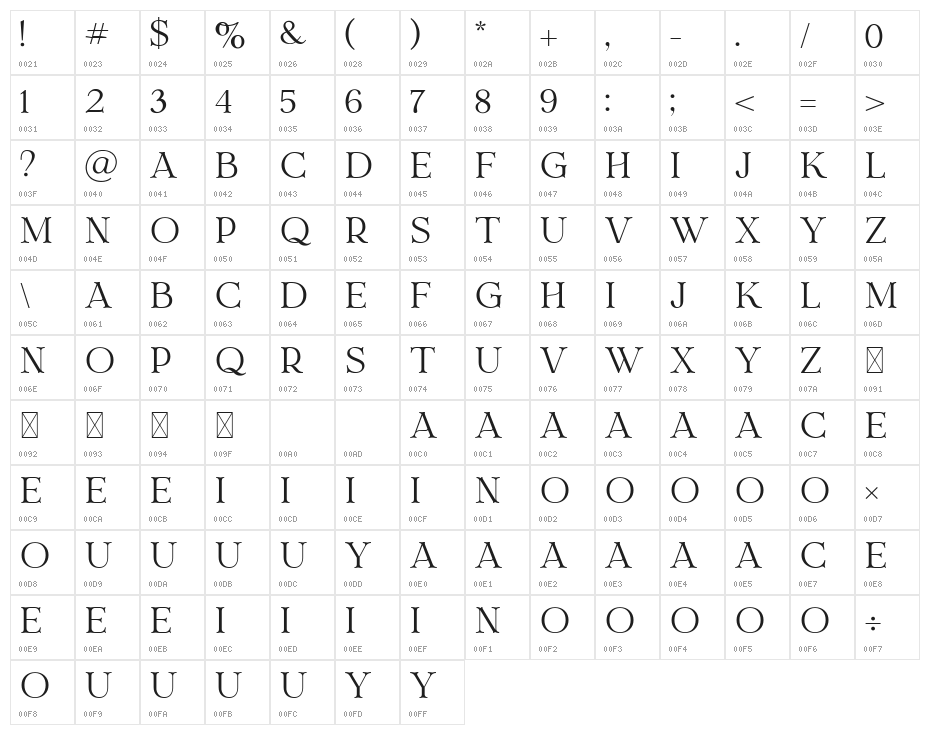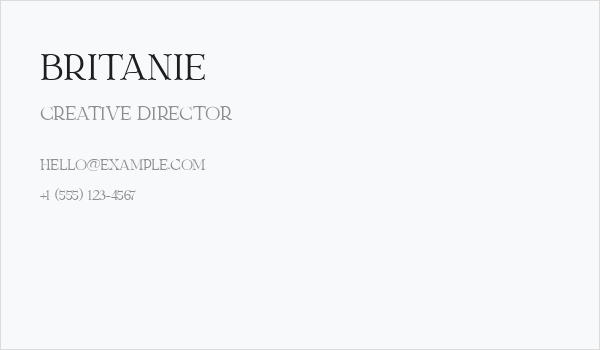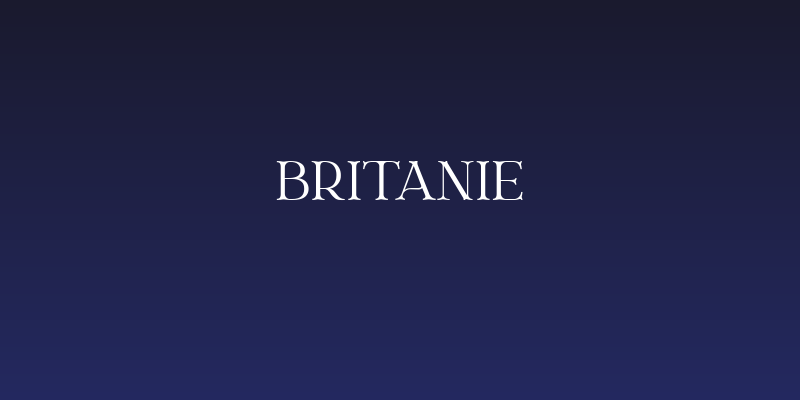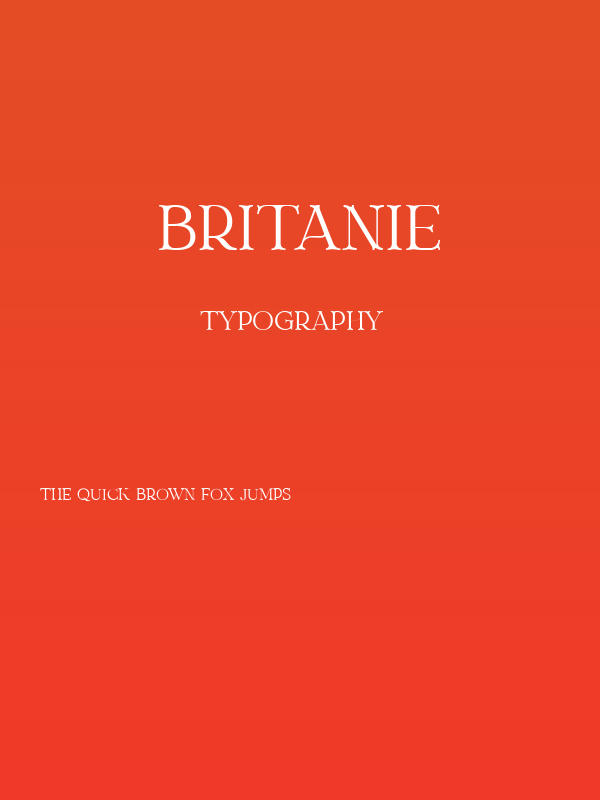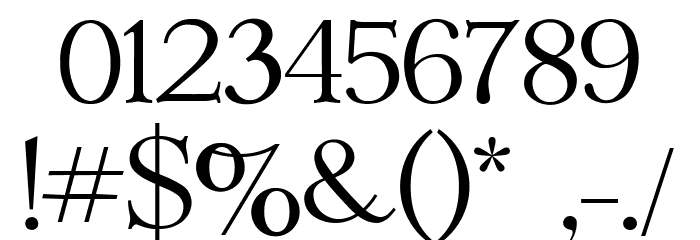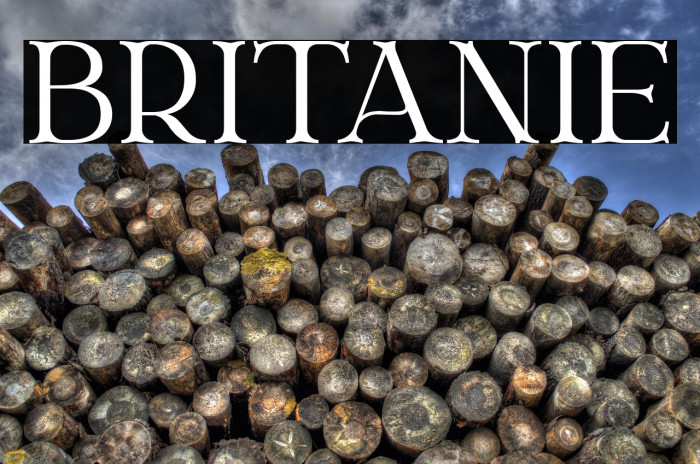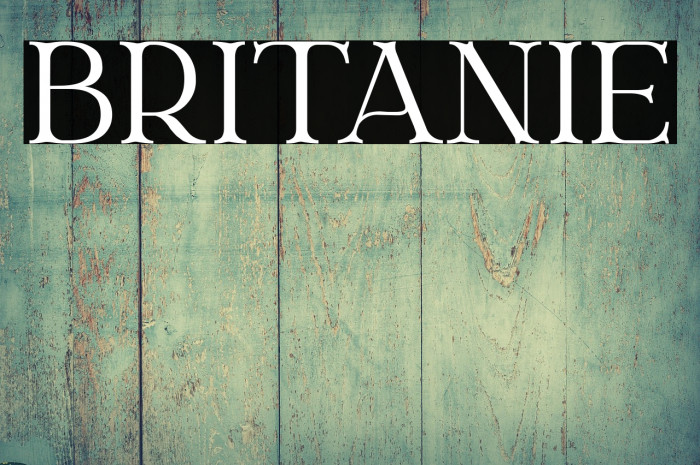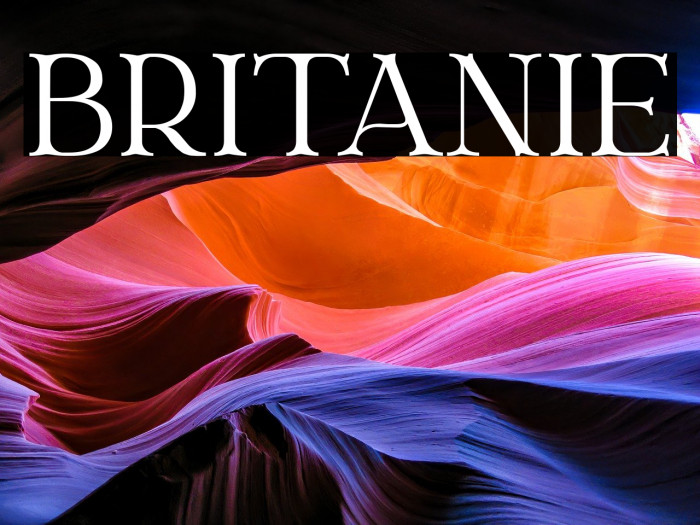
Britanie Font
Britanie Description
This font features a classic serif style with elegant and refined strokes. The characters exhibit a balanced contrast between thick and thin lines, giving it a sophisticated appearance. The serifs are pronounced yet delicate, adding a touch of tradition and formality. The uppercase letters are stately and well-proportioned, while the lowercase letters maintain a harmonious flow. The numerals are clear and distinct, ensuring readability. The special characters are crafted with the same attention to detail, making this font versatile for various applications.
| Proposed Projects | Ideal for use in formal documents, book titles, invitations, and branding materials that require a touch of elegance and tradition. |